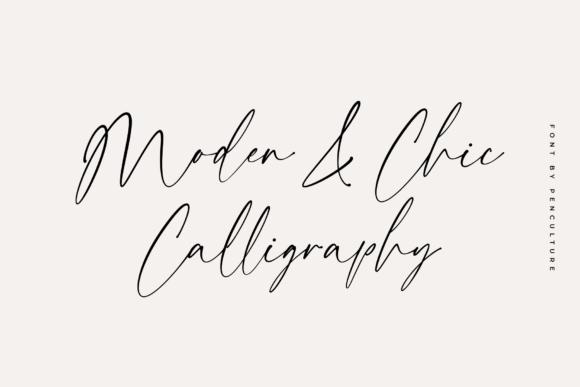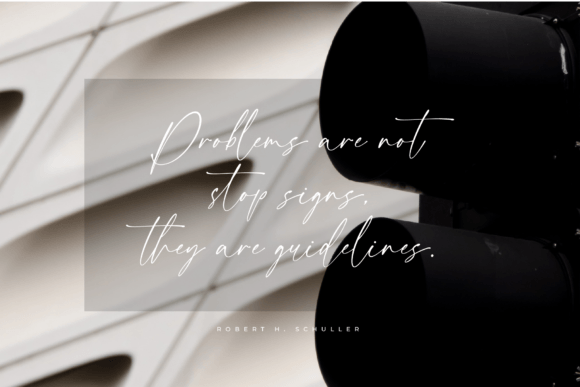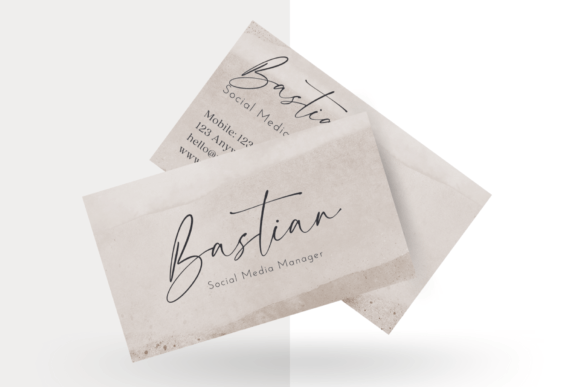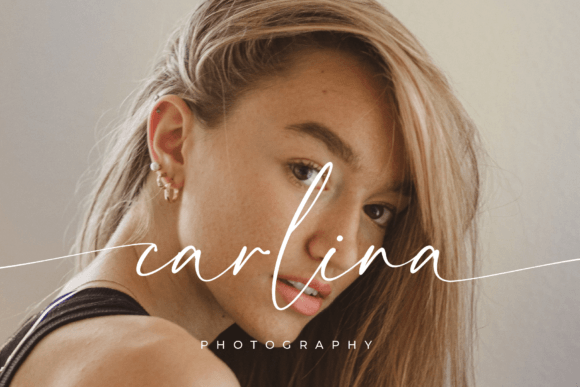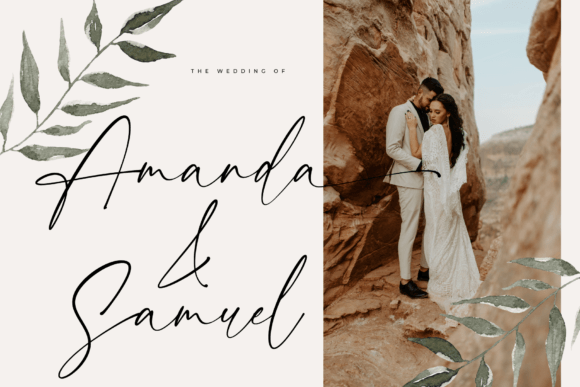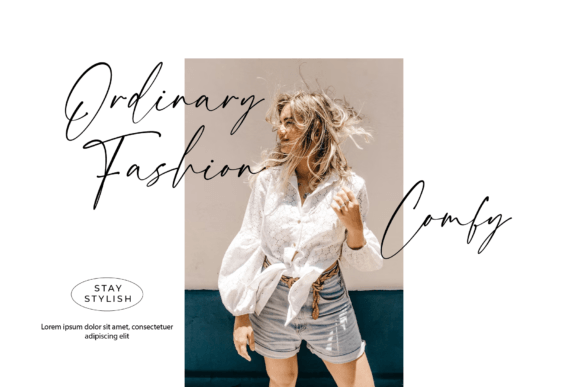
Discover the Elegance of Grand Astoria Font: Elevate Your Designs to New Heights
Are you on the hunt for a font that exudes sophistication, elegance, and a touch of modern flair? Look no further than the Grand Astoria Font. This exquisite handwritten font is meticulously crafted to capture the essence of classy calligraphic influences while maintaining a fresh and contemporary feel. Whether you’re a designer, crafter, or simply someone who appreciates the art of typography, Grand Astoria is sure to become your new favorite.
The Perfect Blend of Classic and Modern
Grand Astoria Font strikes the perfect balance between traditional calligraphy and modern design sensibilities. Its elegant, flowing lines and curves evoke a sense of nostalgia, reminiscent of beautifully crafted handwritten scripts from a bygone era. Yet, its clean and refined aesthetic ensures it remains relevant and versatile, suitable for a wide range of applications, from wedding invitations and branding to packaging and digital media.
What Makes Grand Astoria Stand Out?
- Unique Character: Grand Astoria boasts a distinct personality that sets it apart from more generic fonts. Its characters are carefully designed to convey a sense of luxury, sophistication, and warmth.
- Versatility: This font is incredibly versatile, making it suitable for various design projects. Whether you’re creating a logo, a brochure, or a social media graphic, Grand Astoria can adapt to your needs.
- Legibility: Despite its elegant and cursive nature, Grand Astoria maintains excellent legibility, ensuring your message is conveyed clearly and effectively.
Applications of Grand Astoria Font
The possibilities are endless with Grand Astoria. Here are a few ideas to get you started:
- Wedding and Event Stationery: Create stunning wedding invitations, save-the-date cards, and event programs that set the tone for an unforgettable celebration.
- Branding and Logo Design: Establish your brand’s identity with a sophisticated and memorable logo that speaks to your audience.
- Packaging Design: Elevate your product packaging with elegant labels and packaging materials that reflect your brand’s values and aesthetic.
- Digital Media: Enhance your website, social media graphics, and digital advertisements with a font that captures attention and conveys your message in style.
Tips for Using Grand Astoria Effectively
To make the most of Grand Astoria Font, consider the following tips:
- Pair it with Simplicity: Let Grand Astoria be the focal point of your design. Pair it with simple backgrounds or complementary fonts to avoid visual overload.
- Experiment with Colors: While Grand Astoria looks stunning in classic black and white, don’t be afraid to experiment with colors that match your brand or event theme.
- Play with Sizes: Utilize different font sizes to create visual hierarchy and emphasize key messages in your design.
Grand Astoria Font is more than just a typeface; it’s a design statement. With its exquisite craftsmanship, elegant appearance, and versatile nature, it’s poised to become an indispensable part of your design toolkit. Whether you’re aiming to create timeless wedding stationery, establish a strong brand identity, or simply add a touch of sophistication to your digital media, Grand Astoria is the perfect choice. So, fall in love with Grand Astoria and bring your projects to the highest levels of creativity and refinement.